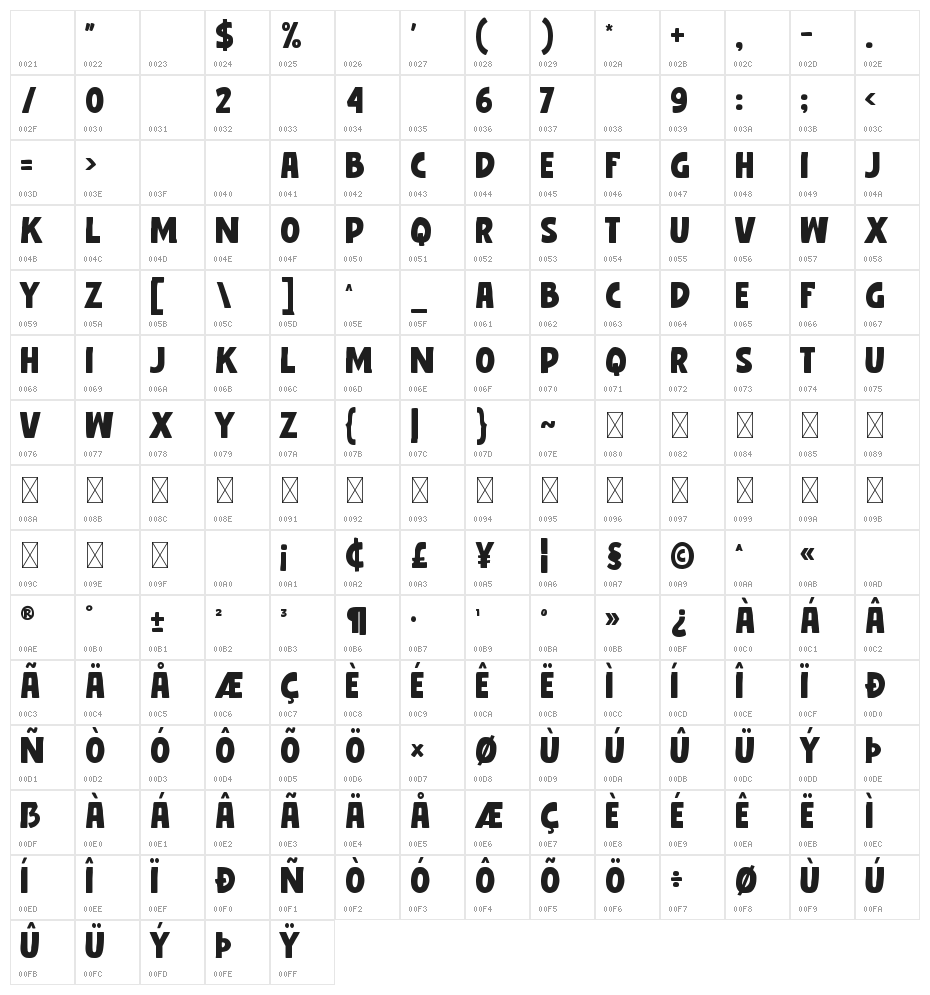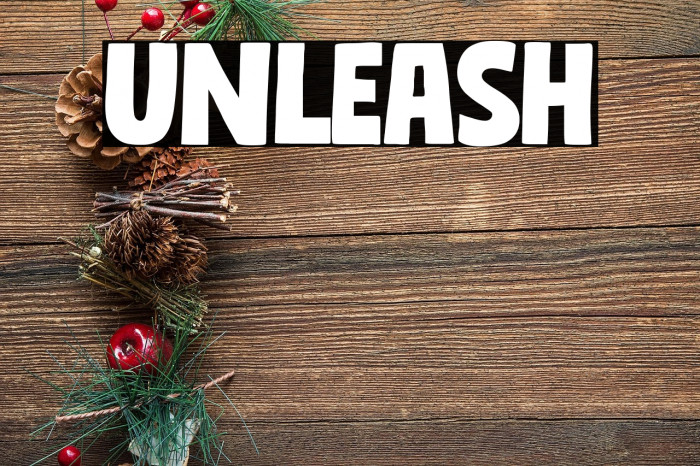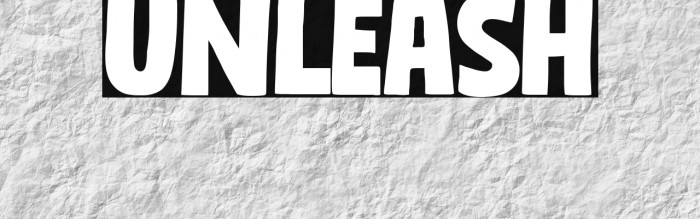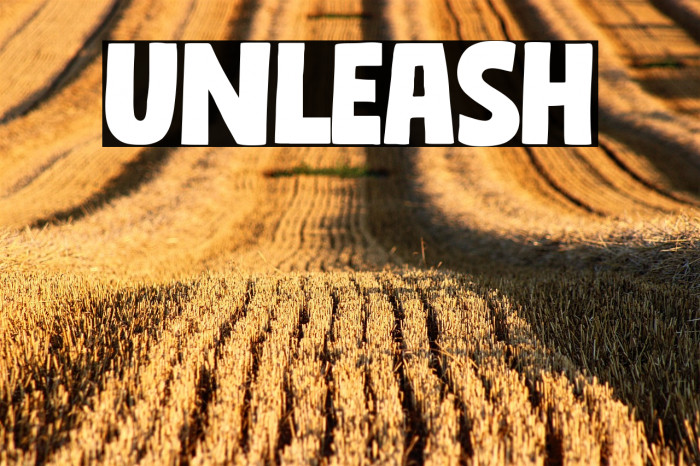
Unleash Font
Unleash Description
This font features a bold and playful style with thick, rounded strokes that give it a friendly and approachable appearance. The characters are slightly condensed, adding a sense of compactness and energy. The uppercase and lowercase letters maintain a consistent weight, contributing to a uniform look across the text. The numbers and special characters are designed to match the playful nature of the letters, making them suitable for a variety of creative applications. The overall design is modern and eye-catching, perfect for projects that require a touch of fun and personality.
| Width | Condensed |
| Proposed Projects | Ideal for children's books, playful branding, posters, and social media graphics. |